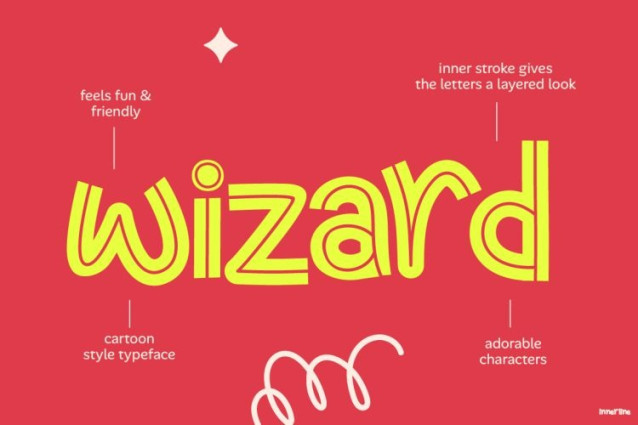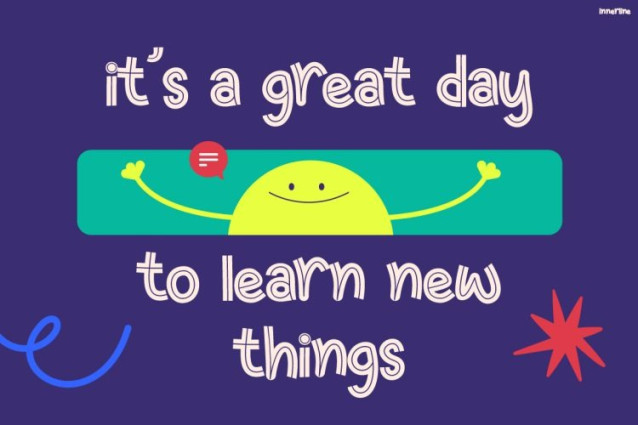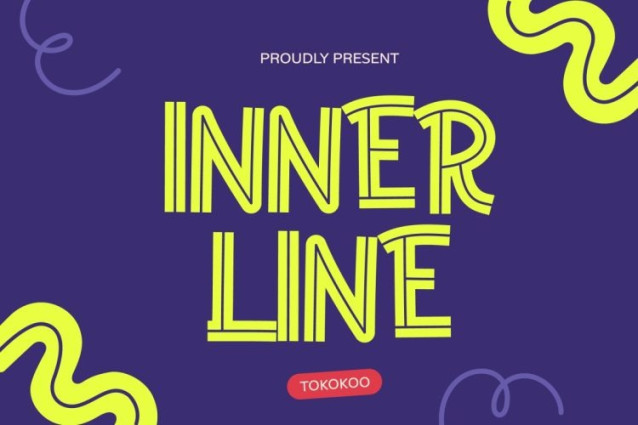
Innerline Font
Innerline Font is a cheerful and expressive display font designed to bring joy, imagination, and warmth into every design. Inspired by playful hand-drawn strokes and smooth inner-line details, this font instantly feels friendly, modern, and full of positive energy. From the first glance, Innerline stands out with its rounded shapes, lively curves, and clean readability. As a result, it creates a perfect balance between fun aesthetics and practical function. Moreover, its consistent stroke style helps your message stay clear while still looking creative and engaging. Whether used large or small, Kids Font Innerline keeps its charm and visual impact across different layouts.
Kids Font Innerline is built to support creative storytelling through typography. Its playful character style feels natural, relaxed, and approachable, making it ideal for designs that aim to connect emotionally with younger audiences. In addition, the font works beautifully across digital and print media. You can use it for headlines, posters, packaging, or social media graphics without losing clarity. The alphabet set, numbers, and symbols are crafted with care, ensuring flexibility for many creative needs. Furthermore, Innerline pairs well with colorful illustrations, bold backgrounds, and minimal layouts alike. Because of its friendly tone, it enhances messages related to education, fun, learning, and positivity.